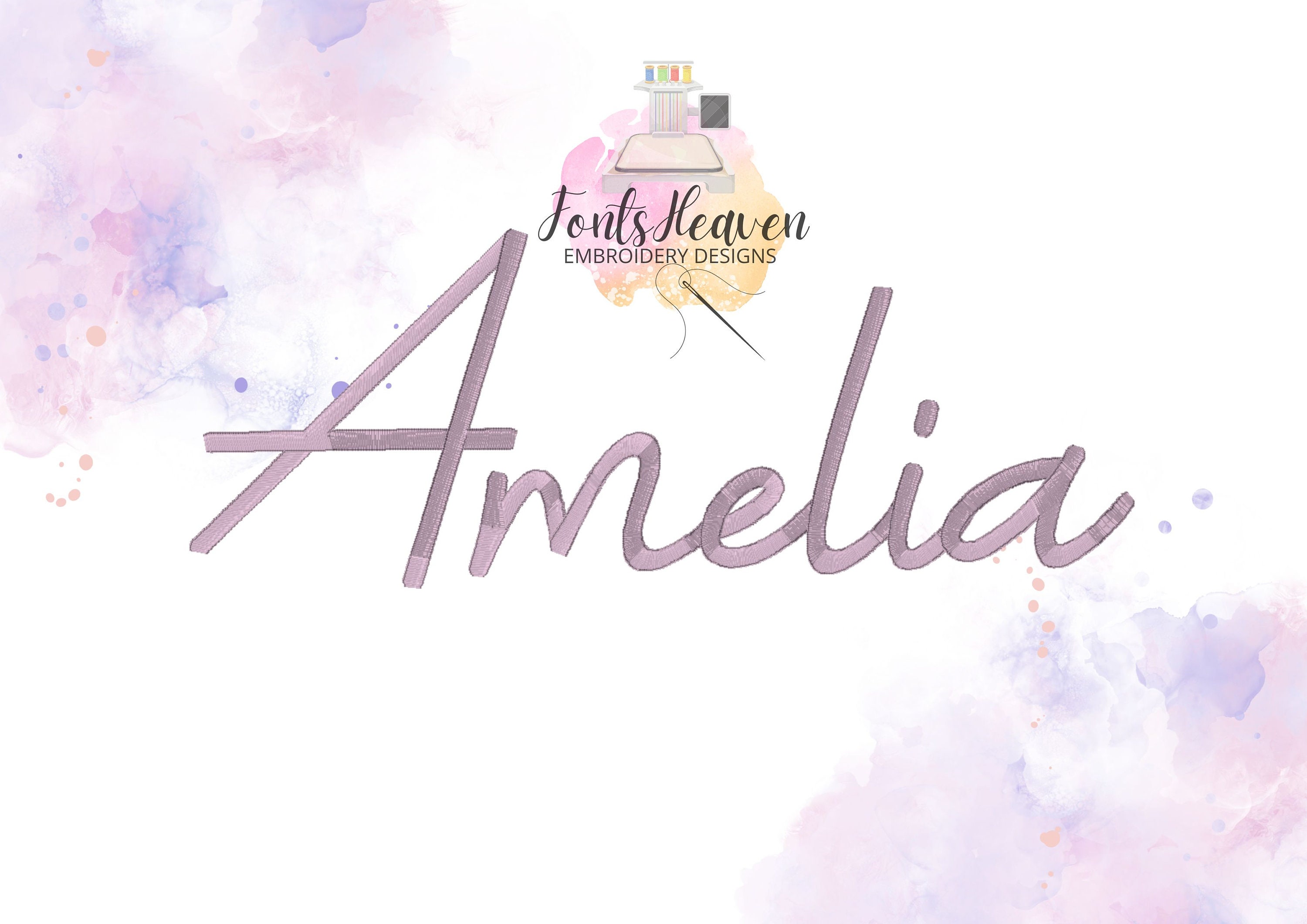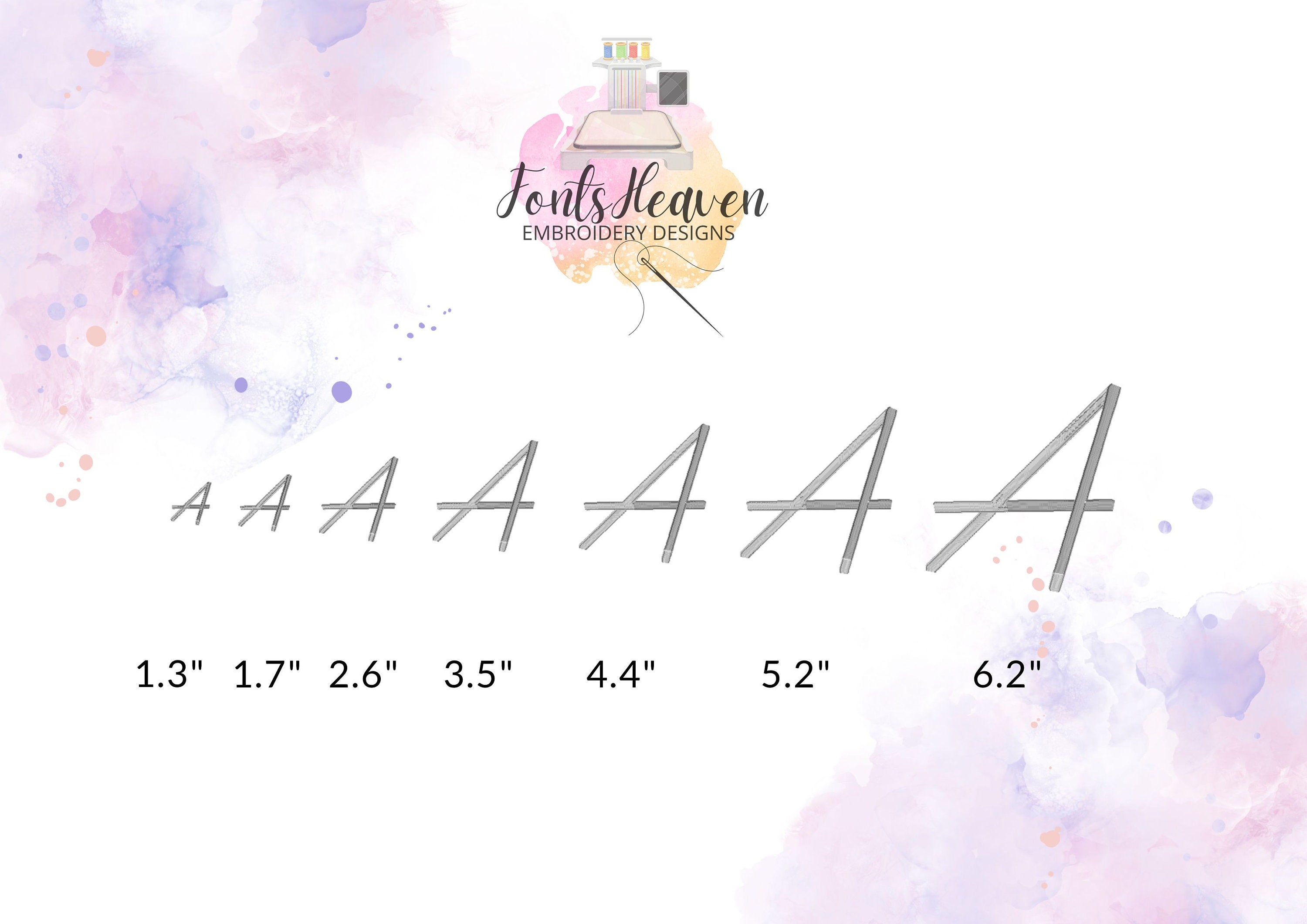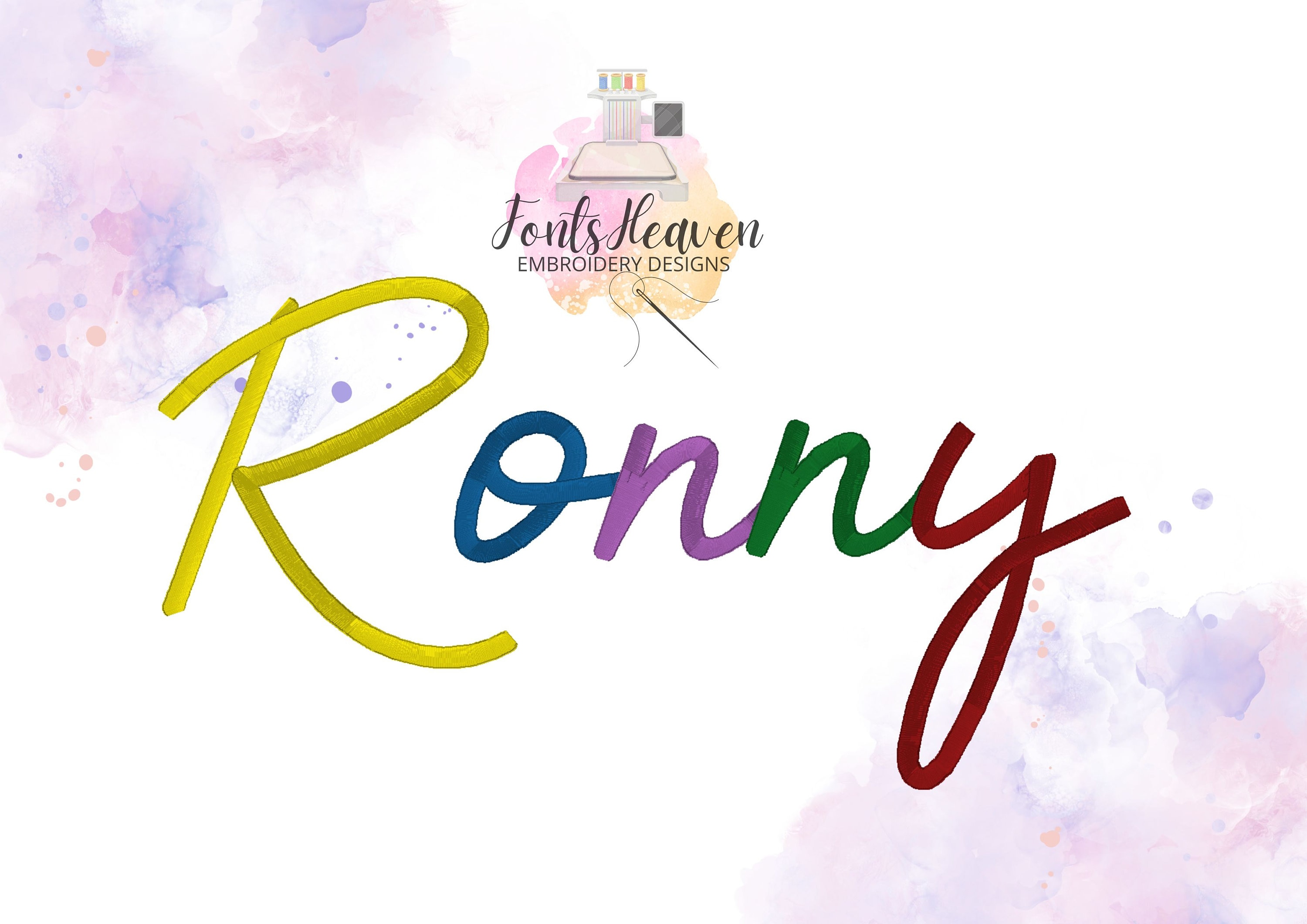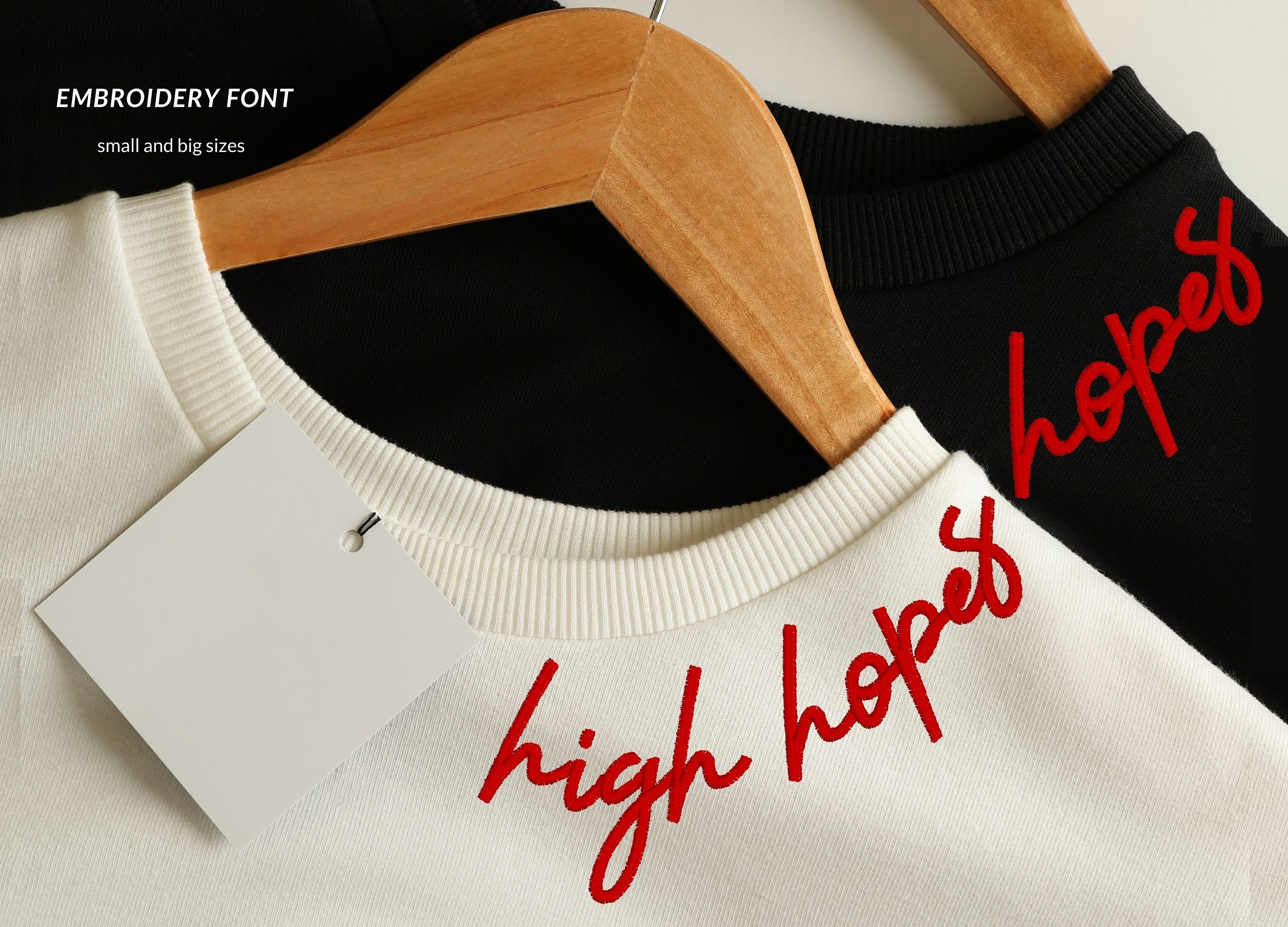
Vintage retro handwritten cursive script Font alphabet letters machine embroidery designs in sizes 1.3 thru 6.2 inches curve curved name, BX included
Uppercase and lowercase letters, and numbers
1.3 "
1.7 "
2.6 "
3.5 "
4.4 "
5.2 "
6.2 "